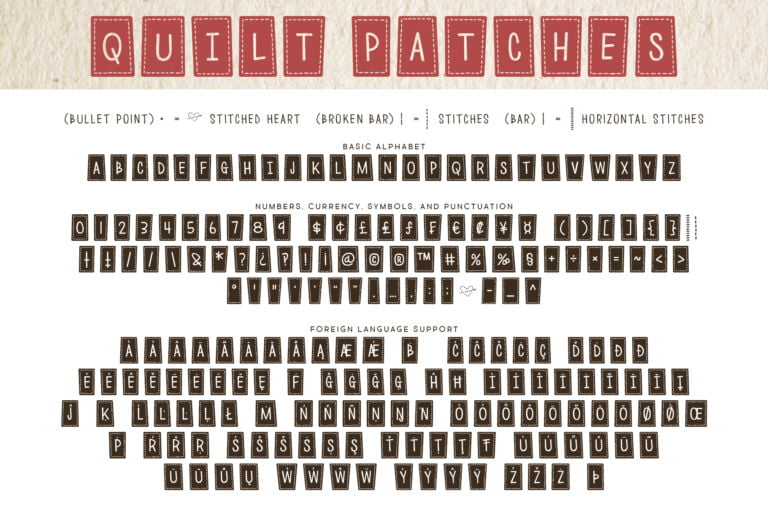
Quilt Patches Font
The Quilt Patches Font is a cozy font that features capital letters encased in stitched patches.
Use the bullet point • for the for a stitched heart and needle character!
Use the bar | or broken bar ¦ for a row of stitching.
Quilt Patches
As well as All Caps Versions
What Can you Create?
Really anything you would like to give a crafty or DIY feel to. Labels, signs, and cards for your friends will all instantly look super cool with this font, at least in my opinion.
Did anyone else enjoy the wonderful world of 4-H growing up? Some days I think I learned more about practical life in 4-H than in “real” school. Breeding animals, refinishing furniture, and for sure sewing projects – along with all kinds of other stuff. I sometimes think we learned all these things because my mom wanted things done for her, but I didn’t realize that until I was about 30, so … nice parenting job on her. She (my mother-in-law too) has always been crafty and has her home decorated in a farmhouse style, but she does live on a farm so… it’s fitting.
That’s somewhat the inspiration for my new font.
A cozy, farmhouse, patch font that seems like it should have existed for a long time. I can see this used on so many different kinds of projects it’s even hard to list them. Really anything you would like to give a crafty or DIY feel to. Labels, signs, and cards for your friends will all instantly look super cool with this font, at least in my opinion.